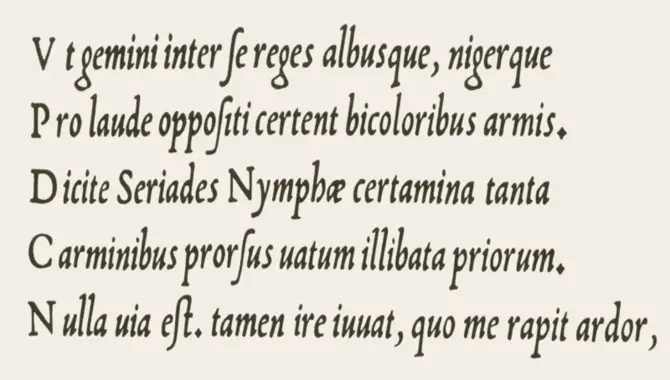
Are you tired of using the same old fonts in your designs? Do you want to add flair to your text without going overboard? Look no further than font weight italics.
Here we dive into the world of bold and beautiful font choices that can make your designs stand out. We’ll explore why italics is a great tool for emphasizing your message, how to use them correctly, and the differences between bold and italics fonts.
We’ll also cover common mistakes to avoid when using font-weight italics so that you can make sure your designs look polished and professional. And if you’re interested in taking things a step further, we’ll even touch on variable fonts and design principles for maximum impact. Join us as we explore the power of font-weight italics.
Boldly Emphasize Your Message: Understanding Font Weight Italics
Font weight italics can help you emphasize important points and add personality to your text. The font-style property in CSS allows you to apply italic or oblique styles to your text. Using them sparingly and consistently with the rest of the typography is important. Don’t confuse italics with bold or underlined styles; each has a different purpose.
In HTML, you can apply italic text using the <i> tag or its variations like <em> tag to emphasise paragraph content. Remember to use fallback fonts if the user’s browser doesn’t support the chosen font family.
Ensuring accessibility is crucial while using italicized text on websites and emails; follow best practices outlined in guidelines like WCAG and have an accessibility statement in your privacy policy.
Why Use Italics In Your Text?
Italics are useful for emphasizing certain words or phrases in your text. They can help draw attention to important information, add emphasis and nuance to your writing, and create a more dynamic reading experience for your audience.
Italics can be handy for titles of books, movies, and other works of art; foreign words or phrases; scientific names or terms; and even for indicating thoughts or inner dialogue in fiction writing.
However, it is important to use italics sparingly and intentionally, as overuse can detract from the effectiveness of the technique. When used correctly, italics can add depth and clarity to your writing and make it more engaging for your readers.
How To Apply Italics In Your Text
When adding emphasis or contrast to your text, using font weight italics is an effective option. Use them sparingly and only when necessary to ensure optimal readability and legibility. Font weight italics can be applied to headings, subheadings, and body text and used in conjunction with bold text.
Different fonts offer various options for incorporating font weight italics into your content. By keeping these tips in mind, you can effectively use font weight italics to add personality and emphasis to your message.
Differences Between Bold And Italics Fonts
Using font styles like italics and bold can add impact to your message. Italics are best handy for emphasising or indicating titles and foreign words while avoiding overwhelming the reader with too much emphasis.
You can apply italics using CSS’s font-style property or HTML’s <em> tag. Additionally, javascript can be handy to add italicized text dynamically. When choosing a font style, consider factors like readability and accessibility.
Fallback fonts are also recommended for better compatibility across different browsers and devices. Cascading Style Sheets (CSS) offer various options like serif and sans-serif fonts and cursive styles like oblique or italic font versions.
Variable Fonts And Their Impact On Design
Explore the design landscape like never before with variable fonts that provide flexible options for enhancing your brand’s visual identity. Using these fonts appropriately can ensure better readability and user experience while improving website performance through reduced font files.
With adjustable weight, width, slant, and other elements available in variable fonts through CSS or JavaScript coding languages; there are endless possibilities for creative typography on any platform or device. So take advantage of this innovative technology today!
Design Principles For Maximum Impact
When designing, don’t forget about the power of font weight and italics! These tools are essential for making your message stand out. By emphasizing certain words or phrases, you can draw your reader’s eye to the most important parts of your content.
Additionally, using different font weights or styles can help establish a visual hierarchy on your page. This will make it easier for readers to scan your content and find what they want.
Don’t forget to be consistent with your font choices; this will help create a polished look that is easy on the eyes. Remember, good design is all about balance.
Common Mistakes To Avoid When Using Font Weight Italics
Bold and beautiful typography is key to visually appealing and cohesive design. When using italics, be sure to be mindful of the readability of your text. Italics can be distracting and take away from the message.
Ans: Choosing between bold and italics for emphasis depends on the context, with bold being more intense and italics used more subtly. Headings and subheadings may benefit from bold, while italics are suitable for words within sentences. Ultimately, the choice is based on design and desired effect.
5.Which CSS Property Is Used To Italicize Text?
Ans: To italicize text in CSS, use the “font-style” property with the value “italic”. Alternatively, use “oblique” to slant the text at an angle. Apply it to individual elements or all text on a page with CSS selectors.